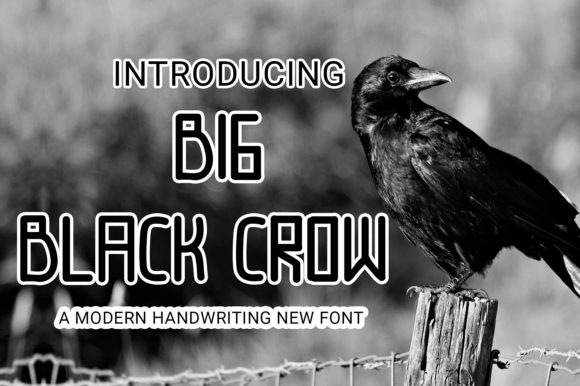
The Big Black Crow Font: A Designer’s New Best Friend
I’ll never forget the time I was working on a DIY project for a client’s birthday party, and I just couldn’t find the right font to make the invitation pop. I had a vision of a playful, yet elegant design, but every font I tried seemed to fall flat. That’s when I stumbled upon the Big Black Crow font, and let me tell you, it was love at first sight! 💕
Big Black Crow is a cute and casual display font that’s perfect for making any creative project stand out. Whether you’re a designer, crafter, or creative hobbyist, this font is sure to become your new go-to. In this article, we’ll dive into what makes Big Black Crow so special, its features, and how to use it on different platforms.
• ✨ **Unique Character**: Big Black Crow has a distinctive, hand-drawn feel that’s perfect for making a statement.
• ✅ **Versatility**: This font is great for logos, headings, t-shirts, letterhead, signage, labels, news, posters, badges, and more!
• 💫 **Easy to Read**: Despite its bold and playful nature, Big Black Crow is surprisingly easy to read, even in smaller sizes.
While Big Black Crow is an amazing font, there are a few things to keep in mind:
• ⚠️ **Limited Use in Body Text**: Due to its bold nature, Big Black Crow might not be the best choice for long blocks of body text.
• 🤔 **Kerning Issues**: As with any font, you might need to adjust the kerning to get the perfect spacing between letters.
One of the best things about Big Black Crow is its support for OpenType features and glyphs. This means you can access:
• Stylistic alternates for varying the look of your text
• Ligatures for a more artistic touch
• Glyphs for adding decorative elements
Big Black Crow was designed with the intention of creating a font that’s both fun and functional. The designer wanted to create a font that would inspire creativity and bring a touch of whimsy to any project. With its unique character and versatility, Big Black Crow is sure to become a favorite among designers and crafters alike.
Q: Is Big Black Crow suitable for body text?
A: While Big Black Crow is an amazing font, it’s not ideal for long blocks of body text due to its bold nature. However, it’s perfect for headings, titles, and short paragraphs.
Q: Does Big Black Crow support OpenType features?
A: Yes, Big Black Crow supports OpenType features, including stylistic alternates, ligatures, and glyphs.